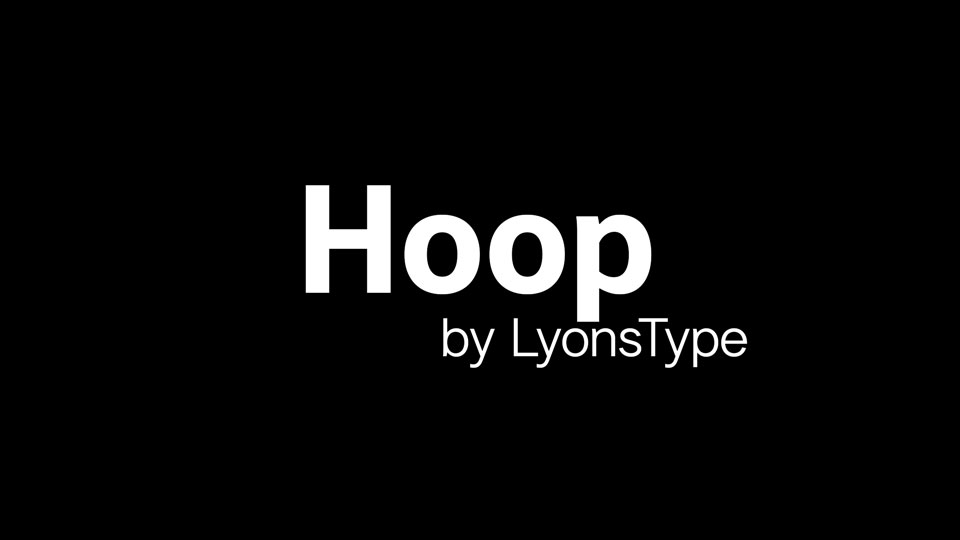
LT Hoop is a versatile sans serif typeface that embodies the dynamic and multi-faceted nature of sports, digitality, robustness, and beyond. This font is a visual representation of energy, strength, and the resilience found in various contemporary contexts.
Ideal for sports branding, technology interfaces, and modern editorial design, LT Hoop becomes a statement font that transcends singular themes. It captures the spirit of versatility and strength, making it suitable for projects that demand a font capable of conveying a myriad of qualities, from power and precision to digital sophistication.